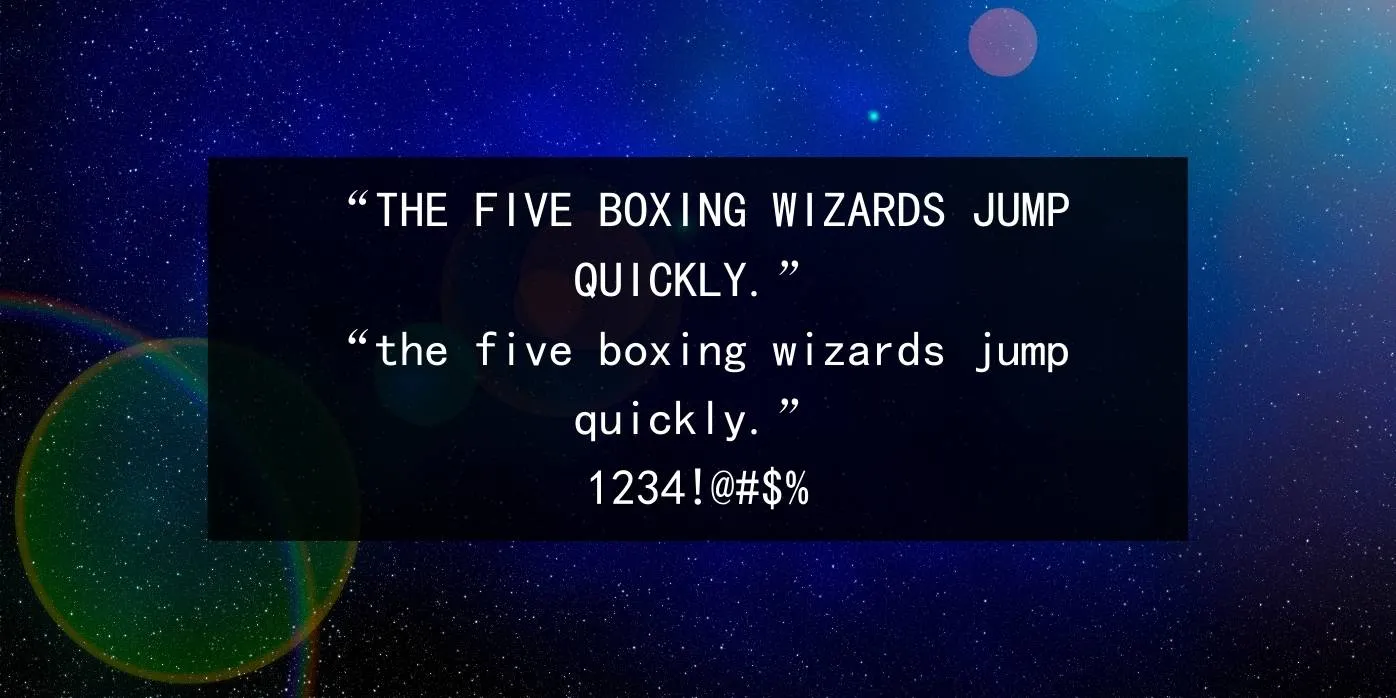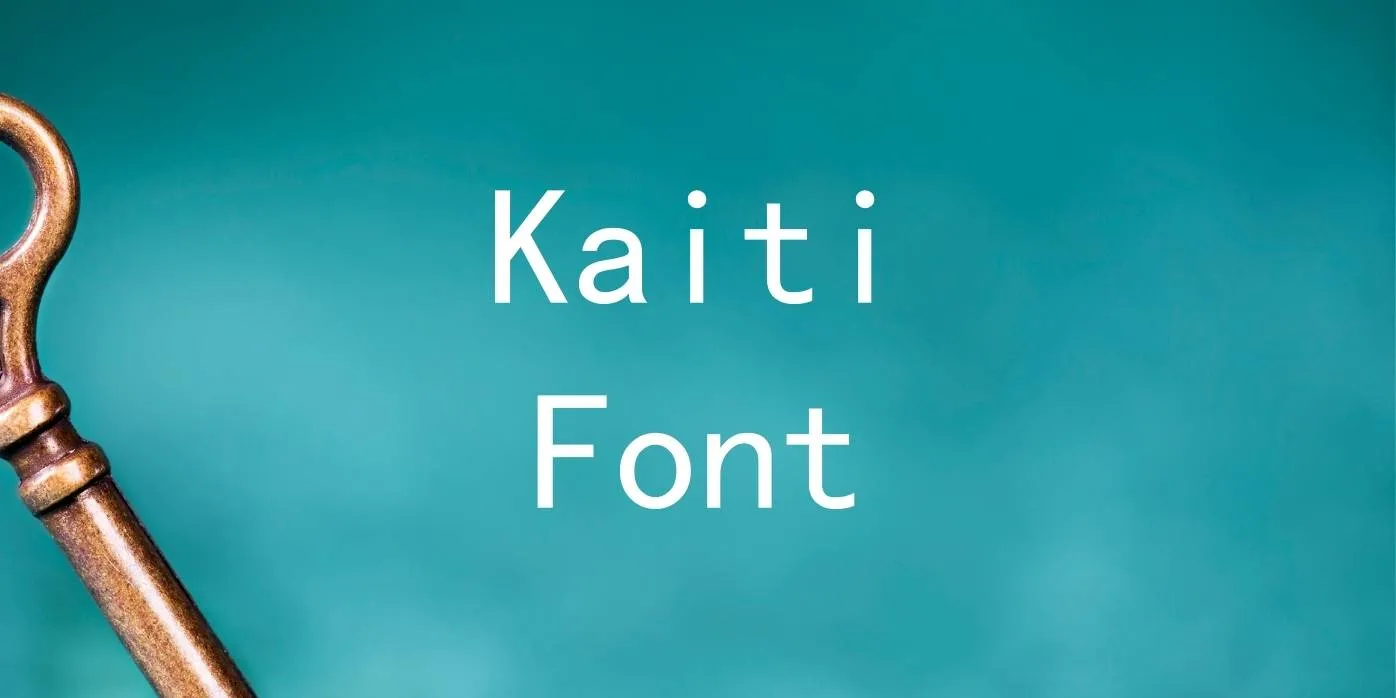
Kaiti Font
In this post, we present a new stylish typeface named Kaiti Font. It belongs to the sans serif typeface. It is a typical Chinese font, which is mainly used in body text. This stunning typeface has a unique and elegant style.
The strokes of this typeface are very thin and the space between strokes is also very small. As a result, Kaiti Typeface looks very compact and tidy. In addition, it has a very calm and serene feeling. For more classic features, you will have to use its alternative grand font which has the same features.
This is because the overall shape of the characters is very round. And the horizontal strokes are slightly curved. Moreover, this classy font has good readability. This is because the x-height and the height of lowercase letters are relatively large.
In addition, the character shapes are very big. And the counter forms are also very large.